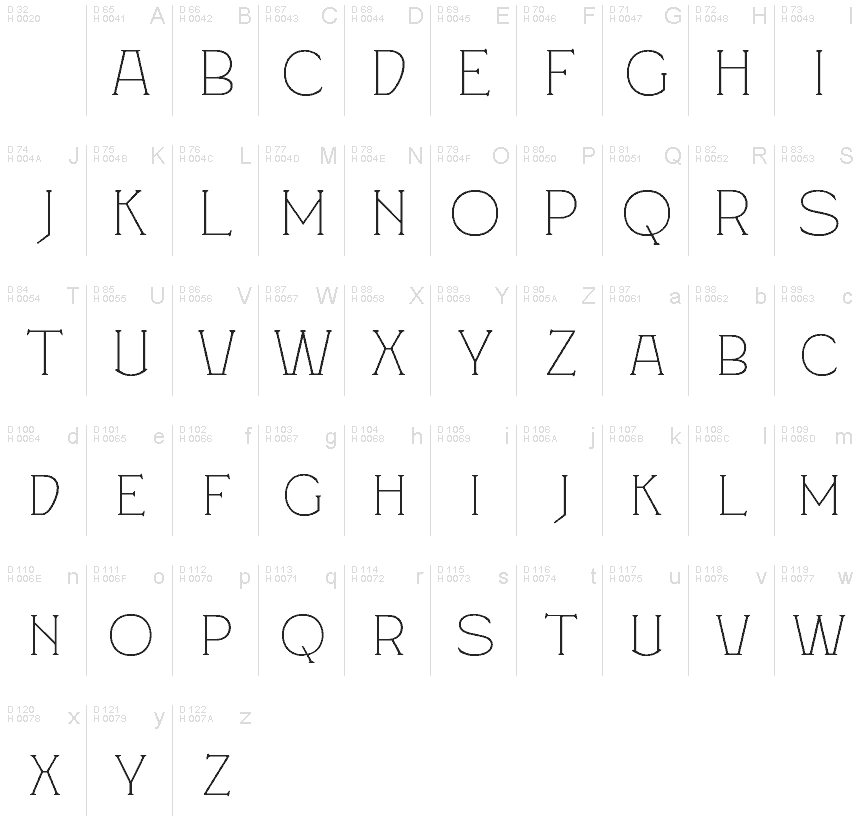
Aurlen Demo Regular
Aurlen font by Craft Supply Co. is a retro serif font with light weight and elegant appearance. This classic typeface has a sophisticated and formal vibe where traditional influences meet the author’s creativity. Distinctive terminals beautify each of the characters of this font as it manages to carry the spirit of historical text in today’s world.
\nWith Aurlen, designing headings, titles, and website text becomes easy even though this typeface will not be suitable for small body text sizes. Music posters, social media posts, magazine layouts, packages covering perfumes or fashion items can all benefit from using orientation-free technology to consume 3D images in various settings.\n